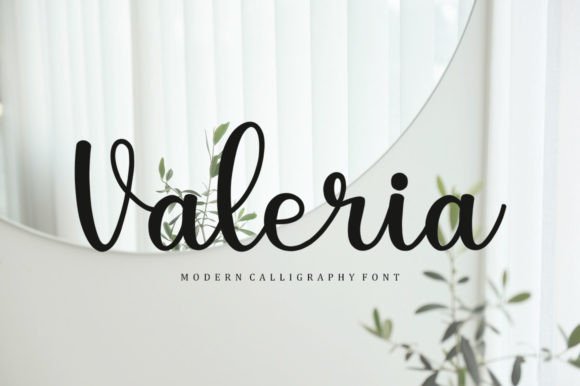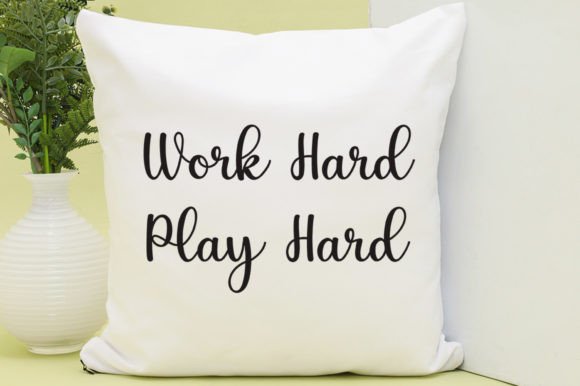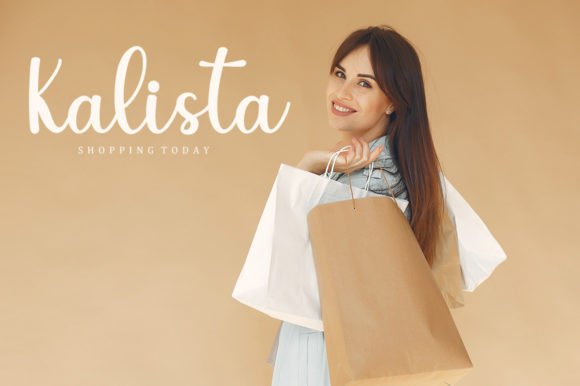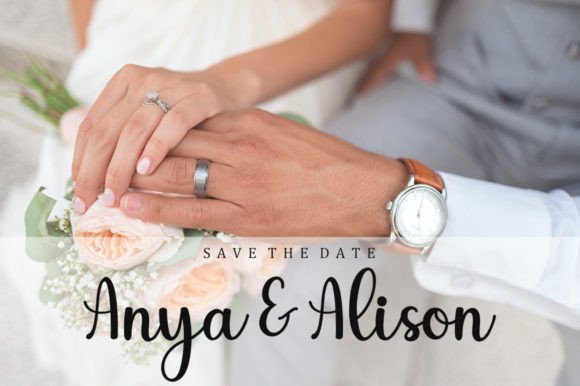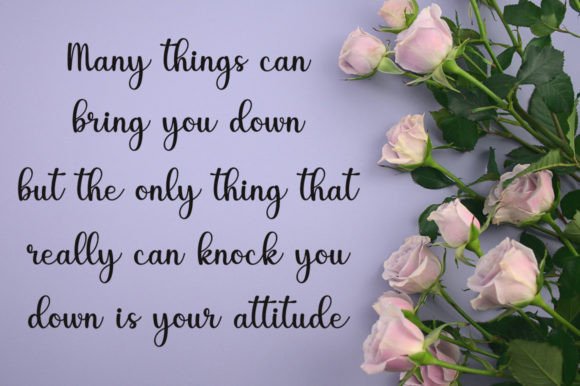
Valeria Font
About Valeria Font
Valeria Font: Elegance with a Timeless Touch
Valeria Font is more than just a typeface; it’s a work of art that encapsulates elegance, sophistication, and individuality in every stroke. With its flowing handwritten style, this font has the power to transform your favorite projects into spectacular designs that stand the test of time. In this 400-word exploration, we’ll delve deeper into what makes Valeria Font so special and how it can enhance your creative endeavors.
**Timeless Elegance:**
Valeria Font is a celebration of timeless elegance. Its graceful, flowing script style is meticulously designed to exude a sense of enduring beauty. This font effortlessly adds an air of sophistication to your projects, ensuring they radiate refinement and grace.
**Distinctive and Memorable:**
What sets Valeria apart is its distinctive and memorable appeal. Each character carries a unique touch of sophistication, making this font a standout choice for projects that require an extraordinary level of style and individuality. Valeria Font is the epitome of lasting chicness.
**An Evergreen Classic:**
Valeria Font is not just a font; it’s an evergreen classic. Its stunning design ensures that your message or branding is conveyed with an unforgettable sense of elegance. Whether it’s for a contemporary project or one that pays homage to tradition, this font adds a touch of sophistication that never goes out of style.
**Unforgettable Branding:**
When it comes to branding, Valeria Font is your key to creating a memorable brand identity. It assists in crafting logos and brand materials that not only look visually appealing but also stay etched in the memory of your audience. Your brand will radiate elegance and distinction that deeply resonates.
**Creating Visual Masterpieces:**
Valeria Font is the perfect choice for creating visual masterpieces. Whether you’re crafting invitations for a special occasion, designing stunning quotes, curating greeting cards, or enhancing your branding materials, this font adds an unmistakable touch of refinement and individuality to your projects.
**Inspire and Captivate:**
In the realm of inspirational quotes or captivating messages, Valeria Font empowers you to create designs that truly inspire and captivate. Your words will shine with a touch of timeless elegance and individuality that leaves a profound impact.
**Endless Creative Possibilities:**
Valeria Font opens up a world of endless creative possibilities. Its timeless beauty and distinctive elegance encourage you to explore diverse design applications, making your projects more stylish and unforgettable.
In conclusion, Valeria Font is a testament to elegance, style, and enduring beauty. Its versatility ensures it’s suitable for a wide range of applications, from branding to invitations and quotes. Embrace the timeless charm of Valeria Font and watch your designs come to life with an extraordinary touch of sophistication and distinction. Make Valeria your font of choice and embark on a journey of creating breathtakingly beautiful and uniquely stylish designs that will stand the test of time.